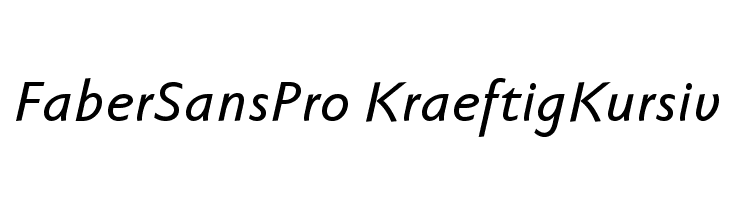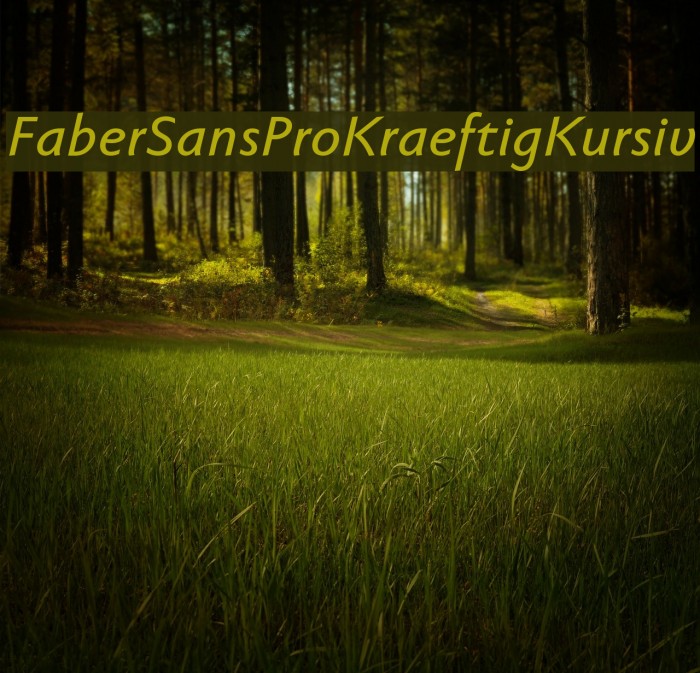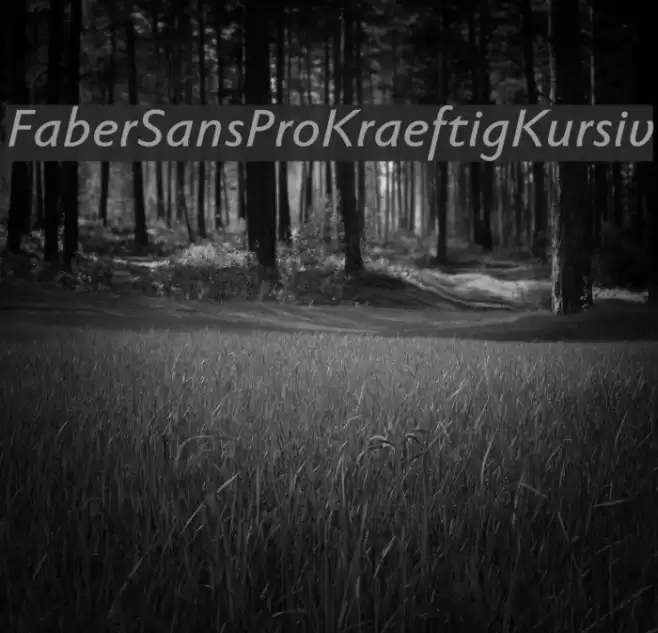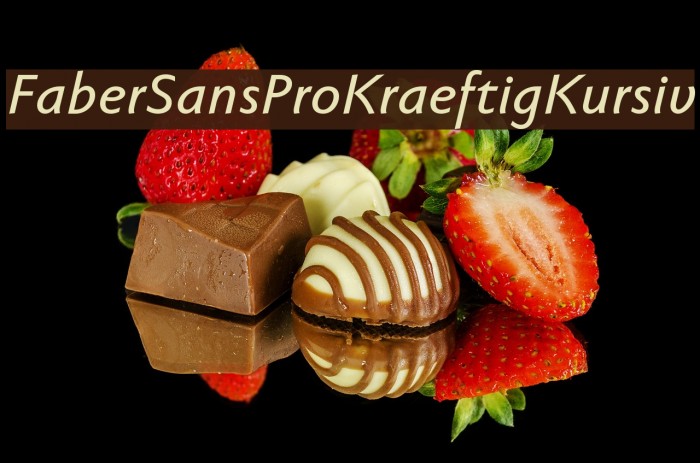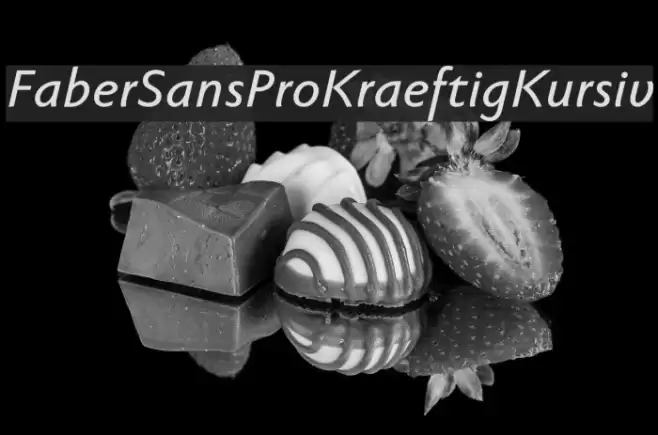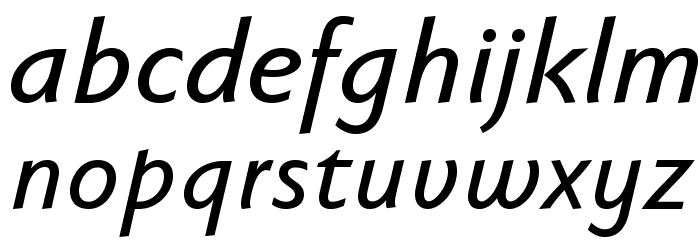
FaberSansPro-KraeftigKursiv Font
✎ Sans Serif
FaberSansPro-KraeftigKursiv Description
This font exhibits a clean and modern sans-serif style with a distinct italic slant, giving it a dynamic and forward-moving appearance. The characters are well-proportioned, with smooth curves and a consistent stroke width that maintains readability. The uppercase letters are bold and assertive, while the lowercase letters retain a friendly and approachable feel. The font's design is versatile, suitable for both digital and print media, and can effectively convey a sense of professionalism and contemporary style.
| Use Case | Headlines, Body text, Logos |
| Proposed Projects | Ideal for branding, advertising, and editorial design projects where a modern and dynamic look is desired. |